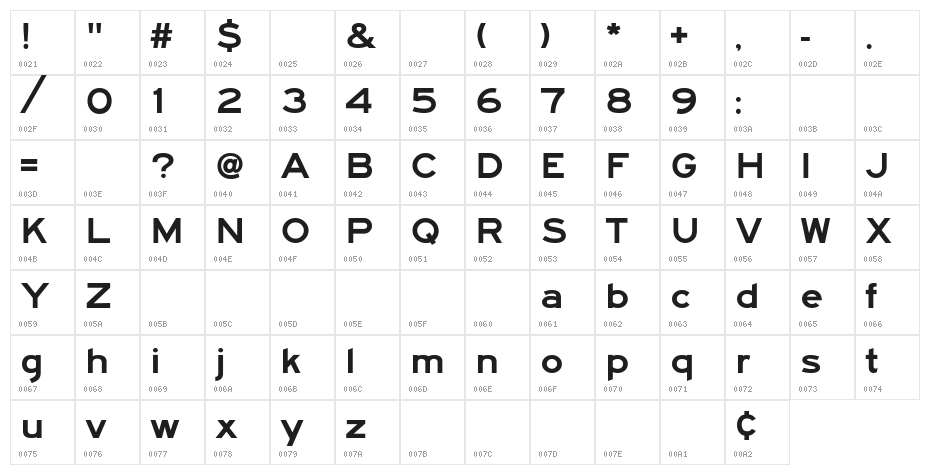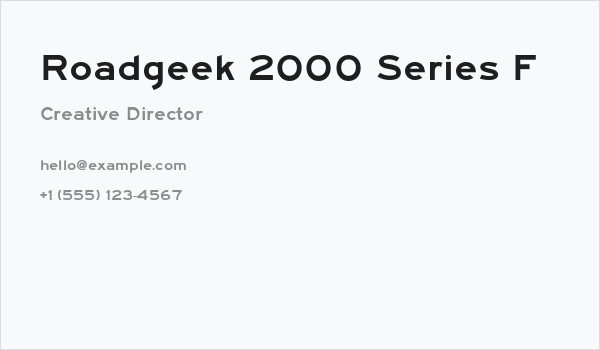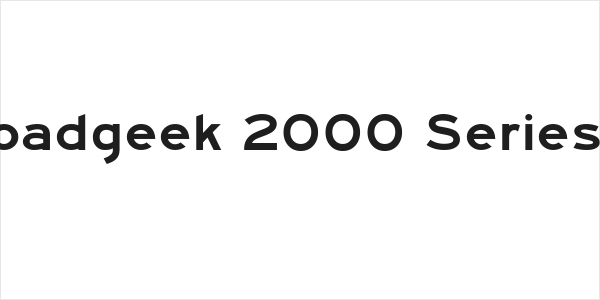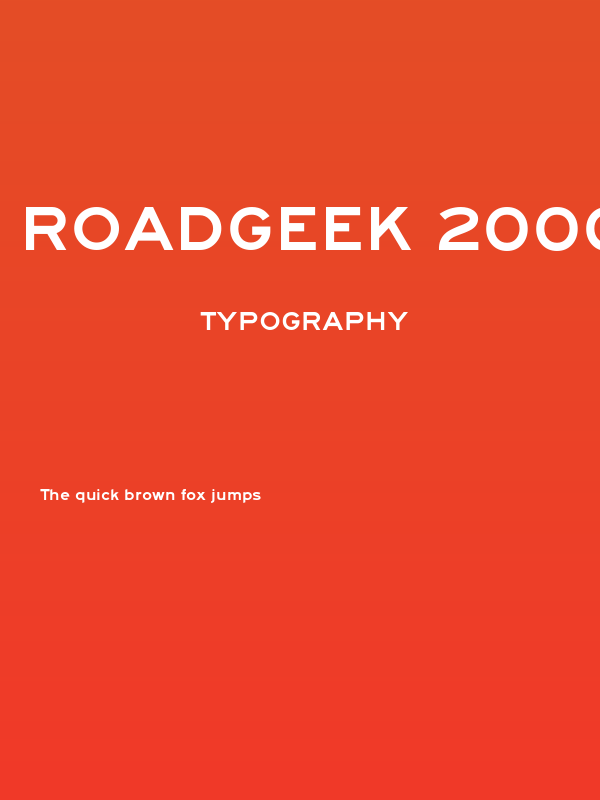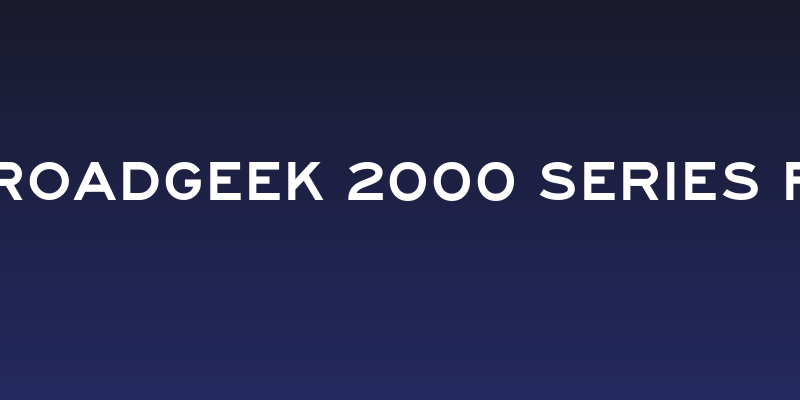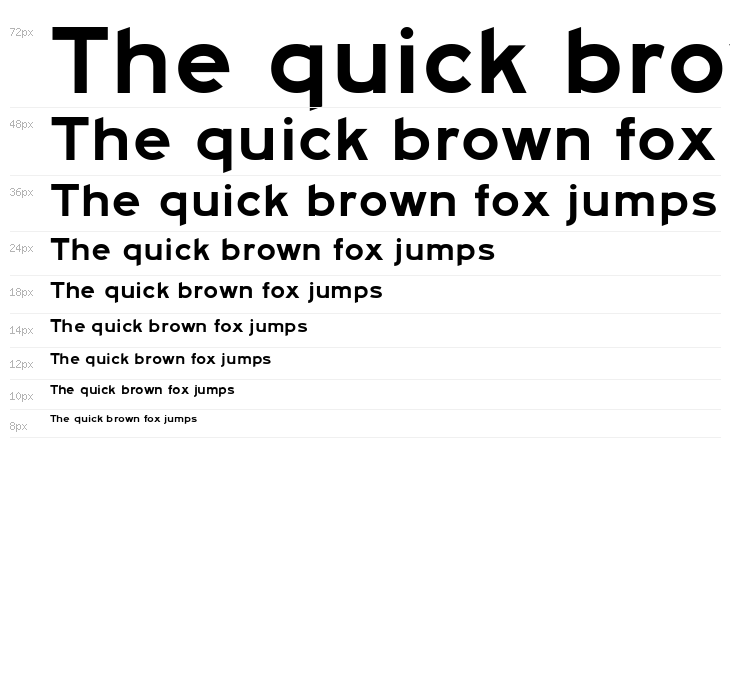
Roadgeek 2000 Series F Font
Roadgeek 2000 Series F Description
This font features a clean and modern sans-serif design, characterized by its geometric shapes and uniform stroke widths. The uppercase letters are bold and assertive, while the lowercase letters maintain a consistent and balanced appearance. The numerals are clear and easily distinguishable, making them suitable for various applications. The special characters are well-integrated, maintaining the overall aesthetic of the font. Its simplicity and clarity make it highly legible, even at smaller sizes, which is ideal for signage and wayfinding systems.
| Use Case | Headlines, Signage, Digital Interfaces |
| Proposed Projects | Ideal for road signage, wayfinding systems, digital interfaces, and corporate branding. |